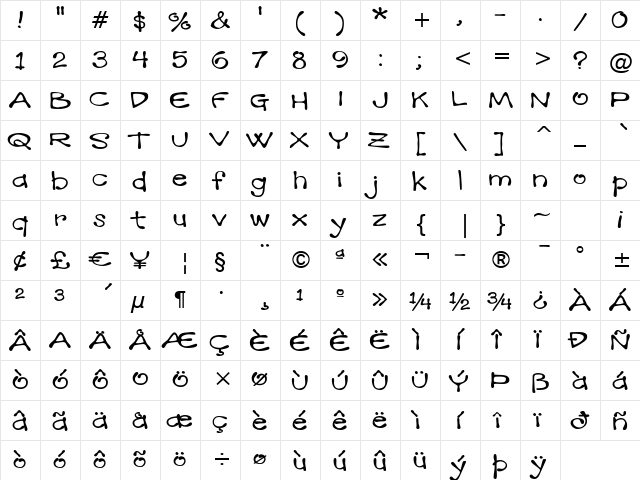
Mandingo BTN Ext Regular
Design Context for Mandingo BTN Ext Typeface
Mandingo BTN Ext is a composed and adaptable typeface that performs quietly and consistently across a wide range of design contexts.
Pro Tip: Use Mandingo BTN Ext in both headline and body roles to test its range before committing to a single application.